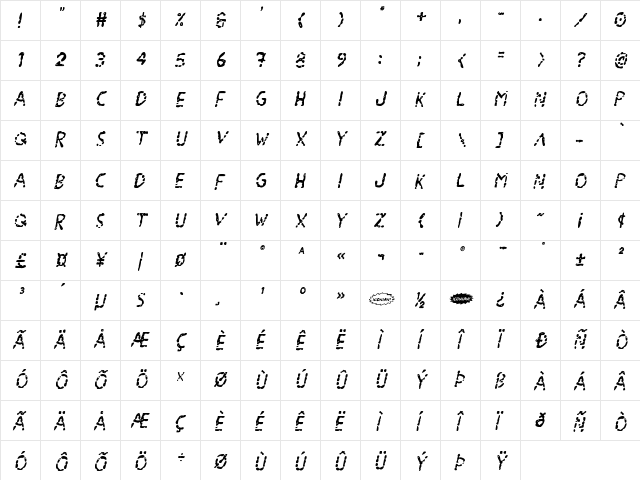
Blood Drenched Staggered Ital Regular
Design Context for Blood Drenched Staggered Ital Typeface
Blood Drenched Staggered Ital leans into the macabre with letterforms designed to disturb and intrigue in equal measure.
Perfect for anything that needs to unsettle — game titles, horror branding, and macabre invitations.
Font Pairing: Pair with a clean neutral sans-serif for body copy to let Blood Drenched Staggered Ital's character lead without overwhelming the composition.
Pro Tip: Use Blood Drenched Staggered Ital at larger display sizes for maximum impact. Consider generous tracking to let the disturbing character of each letterform breathe.